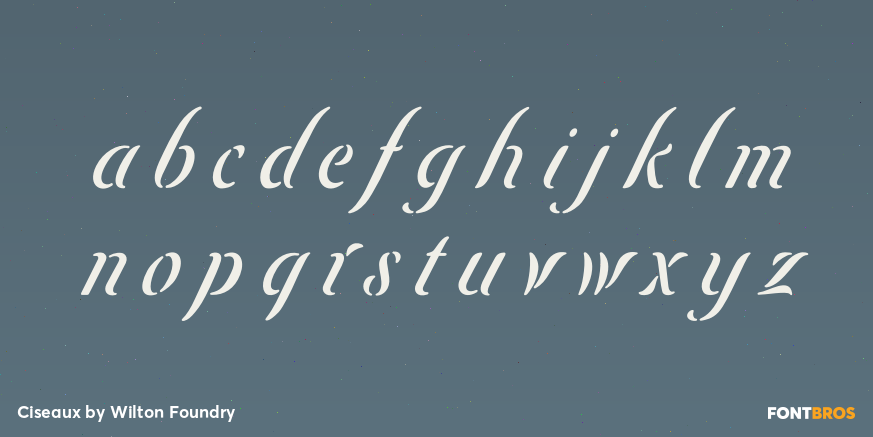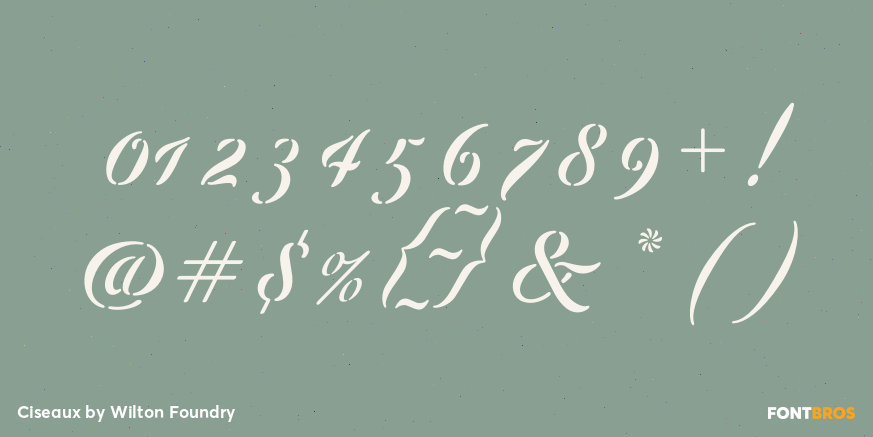
Ciseaux
Font Family by Wilton Foundry
Ciseaux is inspired by and dedicated to the art of papercutting. Early papercutting artists were often royalty, but it soon became a folk art practiced by commoners whose cutouts decorated their homes. By the seventeenth century it had spread throughout the world. The art form later developed into cutting out elaborate designs of nature scenes and people, celebrating special occasions and even decorating legal documents. Ciseaux letterforms mimic papercutting art in its shapes with a rather loose and almost joyous rhythm. The overall effect is somewhat earthy and natural yet it has an element of sophistication that cannot be ignored. Just like papercutting, Ciseaux can be used for special occasions like invitations, brochures, identities, restaurant menus, and if you dare, some awesome looking paper graffiti.